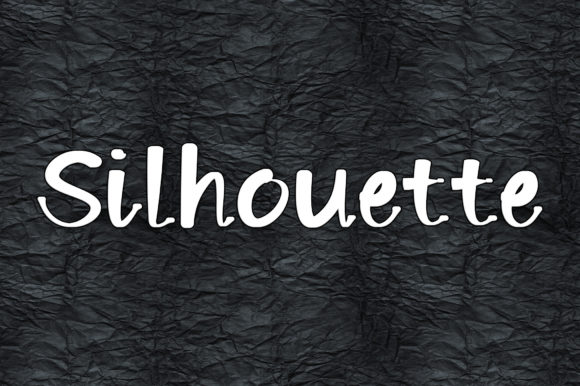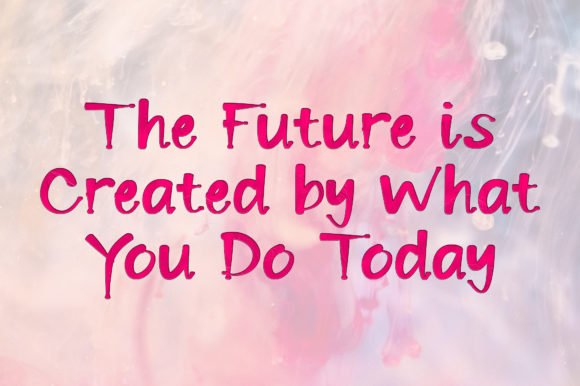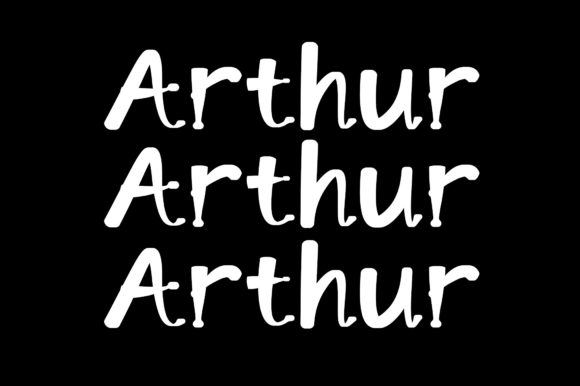
About Silhouette Font
Silhouette is a chic, refined script font that emanates sophistication and elegance. Its stylish alternates and ligatures make this font the perfect match for any project.